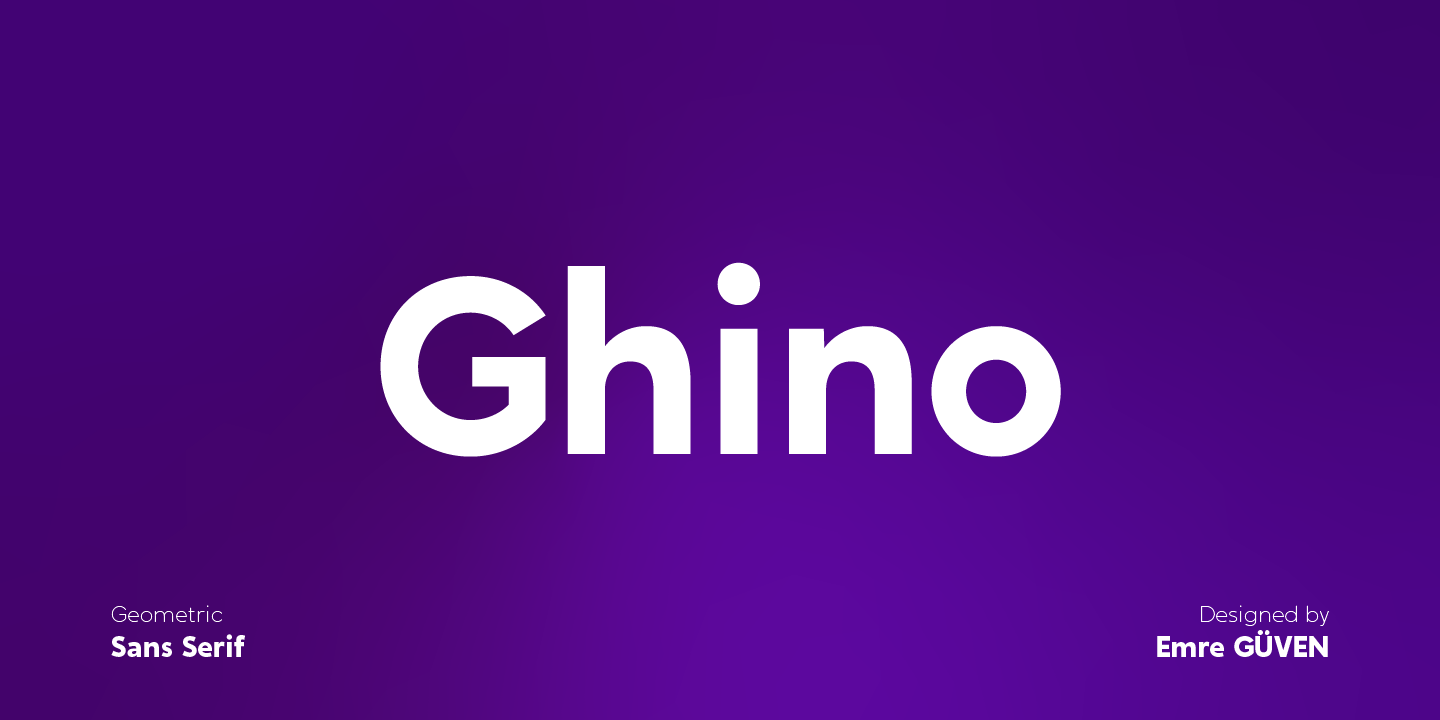
The Ghino Font is perfect for edgy streetwear branding, urban culture magazines, underground music venue signage, modern graffiti-inspired artwork, contemporary street fashion logos, alternative lifestyle publications, youth-oriented marketing materials, creative rebellion campaigns, and bold artistic expression projects.
What makes the Ghino Font so exciting is its raw urban authenticity that instantly captures the gritty energy and rebellious spirit of contemporary street culture. This powerful typeface embodies the uncompromising attitude and creative defiance that defines urban artistic expression, creating an immediate impression of authenticity and cultural edge. The font's ghino character communicates the bold creativity and street credibility that urban culture businesses need to connect with audiences who appreciate genuine street art and seek authentic urban experiences rooted in creative rebellion and cultural authenticity.
The Ghino Font family includes Regular weight featuring complete uppercase and lowercase character sets, comprehensive numerical collections, essential punctuation marks, and urban-inspired symbols that maintain the street aesthetic throughout your urban culture and alternative lifestyle design projects.
Urban culture businesses and street-focused organizations consistently choose Ghino Font Free Download for projects that require authentic street appeal and edgy urban communication. This exceptional typeface excels in environments where establishing street credibility and urban authenticity is crucial for attracting young audiences and street culture enthusiasts who value genuine urban expression and alternative cultural experiences. The font's ghino character helps communicate the authenticity and creative edge that street culture audiences expect from established urban brands and credible street culture providers.
The distinctive qualities of Ghino Font reflect the dynamic traditions of street culture where creative rebellion, urban authenticity, and artistic defiance create powerful cultural movements and memorable artistic expressions. Each character demonstrates the bold confidence and uncompromising spirit that characterizes successful street culture businesses and urban artistic enterprises. The font's proportions and spacing create perfect balance between rebellious energy and readable clarity that modern urban businesses require for effective street marketing and cultural communication.
Contemporary urban enterprises appreciate how Ghino Font communicates street authenticity and cultural rebellion. Whether designing materials for streetwear brands, creating branding for underground music venues, or developing marketing for alternative lifestyle products, this font delivers the authentic character that distinguishes genuine street culture from mainstream commercial attempts. The typeface works exceptionally well for businesses emphasizing creative rebellion, urban authenticity, and the edgy appeal of genuine street culture and alternative artistic expression.
The versatility of Ghino Font extends across multiple urban applications and street culture marketing initiatives. Independent record labels utilize its edgy character for underground music promotions and artist branding materials. Street art galleries choose it to communicate their commitment to authentic urban artistic expression and alternative cultural movements. Youth marketing agencies rely on its rebellious appearance to attract young consumers seeking authentic alternative lifestyle products and street culture experiences.
Digital urban platforms benefit from Ghino Font's optimized performance across various street culture applications and urban communication channels. The font maintains its ghino character whether displayed on urban websites, mobile street culture apps, or digital underground music platforms. This technical reliability ensures consistent brand presentation across all urban communication platforms and street culture engagement scenarios.
The emotional impact of Ghino Font resonates with audiences who embrace creative rebellion and seek authentic connections to urban culture and street artistic expression. The typeface serves as a visual statement of cultural authenticity and creative defiance that helps urban businesses build passionate relationships with street culture enthusiasts who value genuine artistic rebellion and alternative cultural experiences. This connection to urban authenticity and creative rebellion makes it invaluable for establishing credible street culture brand identities.
Urban marketing specialists and street culture design professionals recognize Ghino Font as an essential tool for authentic street branding. The font captures the essence of urban rebellion while making street culture accessible to contemporary businesses who want to communicate their commitment to creative authenticity, urban credibility, and the powerful appeal of genuine street culture and alternative artistic expression in today's diverse cultural marketplace.